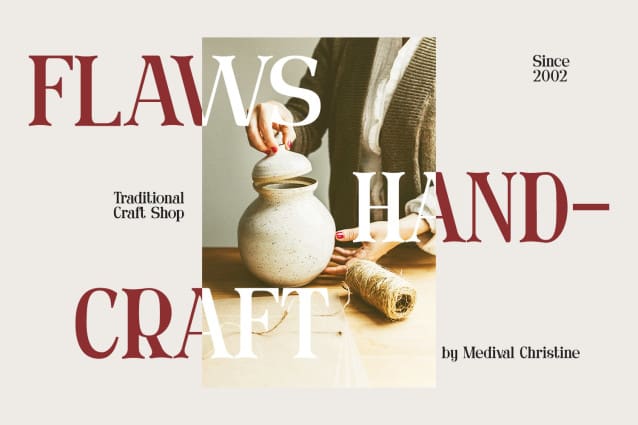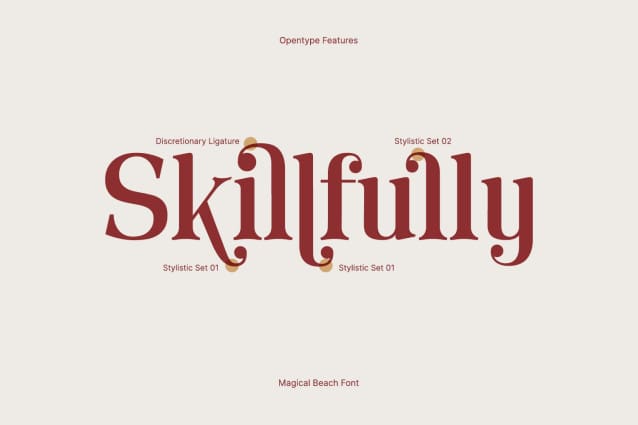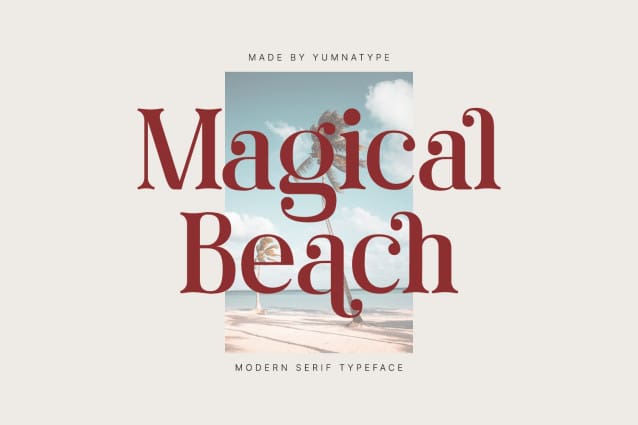
Magical Beach Font
Magical Beach Font is a captivating serif font that transports you to the enchanting shores of a modern paradise. Inspired by the natural beauty of coastal landscapes and the timeless elegance of serif typography, MagicalBeach strikes the perfect balance between tradition and innovation. Each letter is meticulously crafted with clean lines and subtle curves, exuding a sense of sophistication and charm.
Despite its classic serif roots, Magical Beach is designed with a modern twist, featuring sleek and streamlined letterforms that lend it a distinctly contemporary feel.